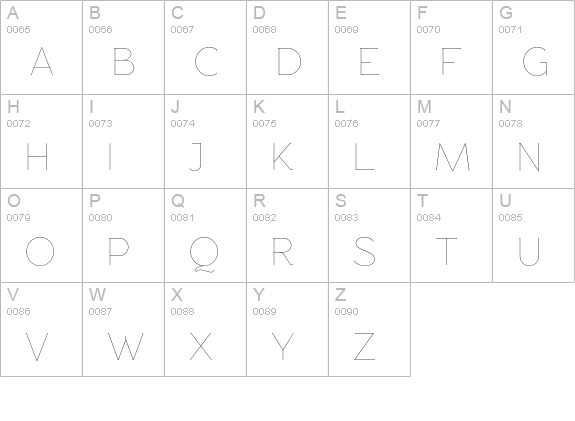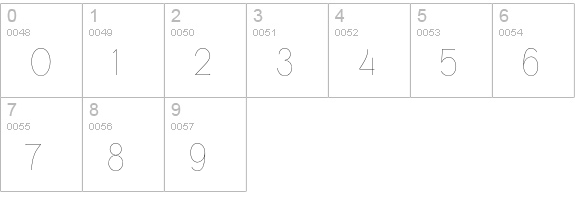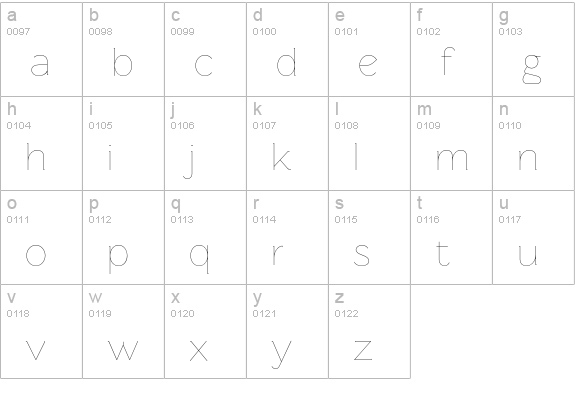
Rawengulk Ultralight is an airy, ultra-refined variant in the Rawengulk typeface family \xE2\x80\x94 well suited to minimalist headlines and refined display use.
Rawengulk Ultralight is a stunning font that exudes elegance and sophistication. Its delicate and slender letterforms are meticulously crafted to create a truly captivating aesthetic. With its ultra-thin strokes and graceful curves, this font is perfect for projects that require a touch of refinement and finesse. What sets Rawengulk Ultralight apart is its versatility. Whether used for professional design work, artistic endeavors, or personal projects, this font effortlessly adapts to any context. Its clean and legible appearance ensures that it remains easy to read, even at smaller sizes. One of the most remarkable aspects of Rawengulk Ultralight is that it is free. Yes, you read that right! This extraordinary font is freely available to download at FontsMarket.com. Now, you can enhance your creations without having to spend a dime. Rawengulk Ultralight is a true gem in the world of typography. Its unique combination of sophistication, versatility, and affordability makes it a must-have for designers, artists, and anyone seeking to elevate their visual projects. So why wait? Head over to FontsMarket.com and grab this exceptional font today!